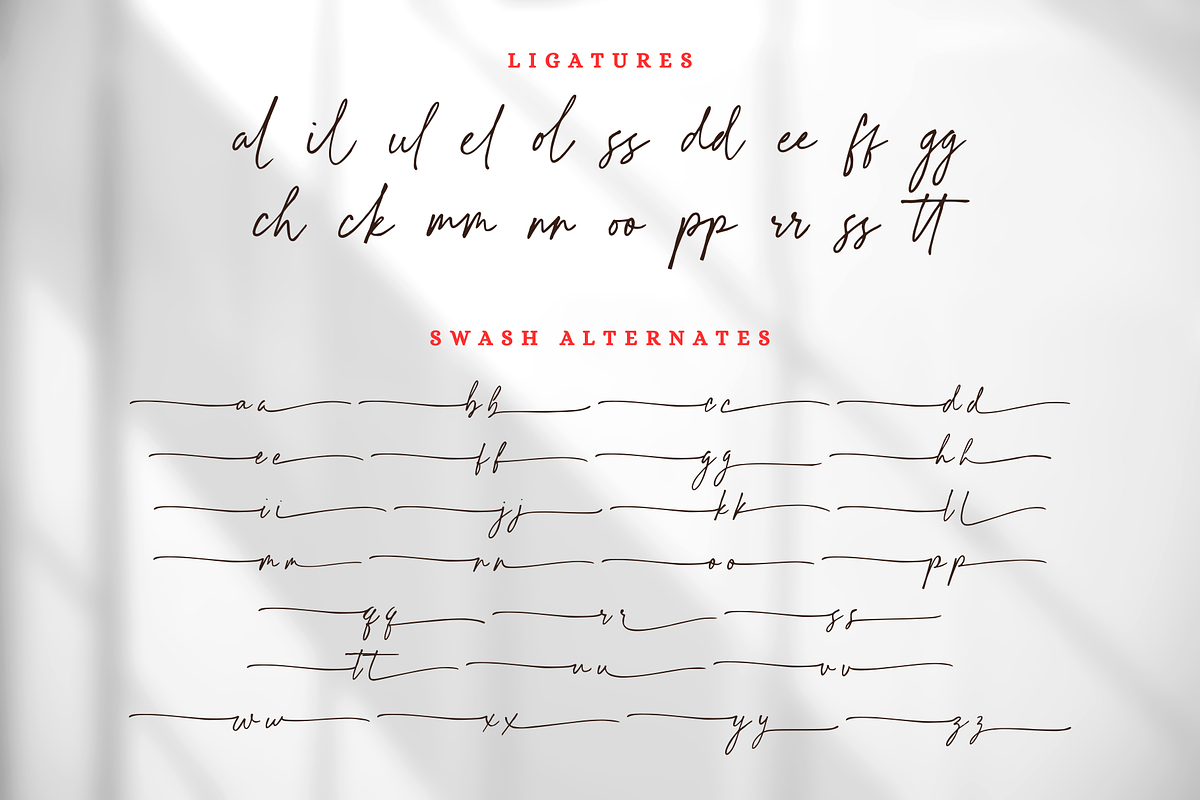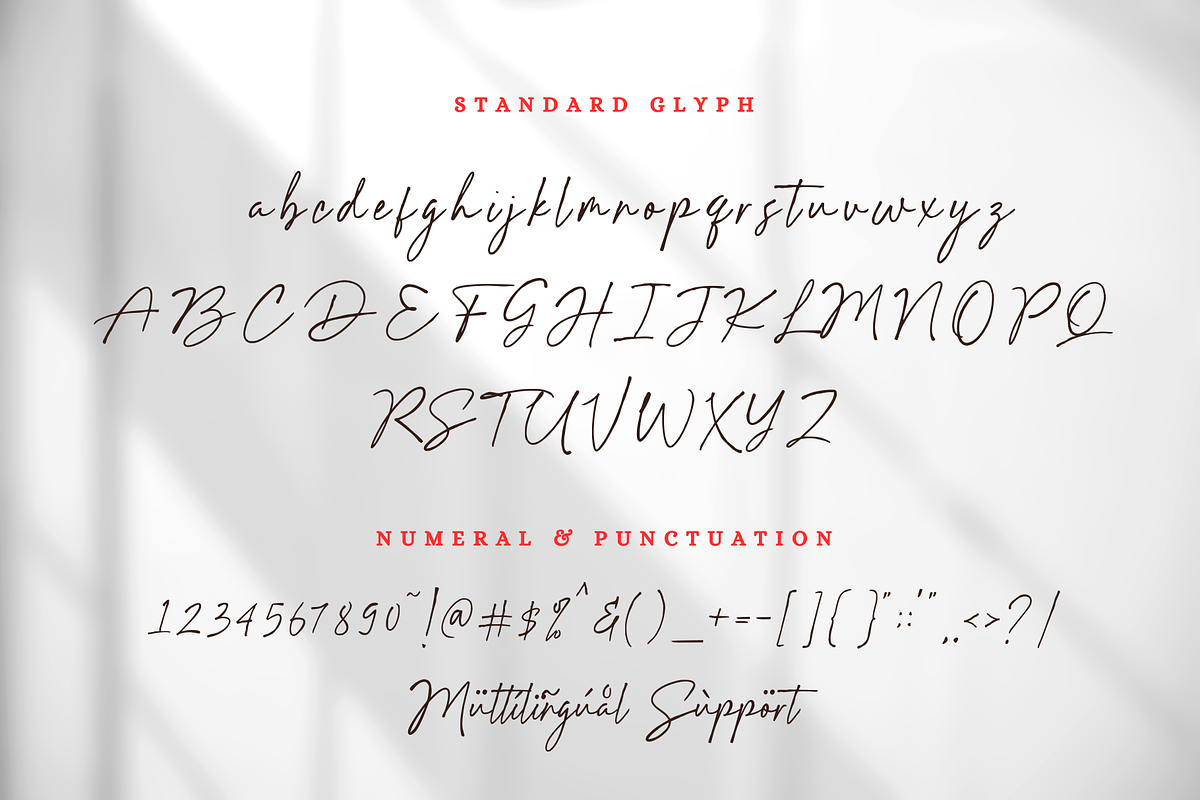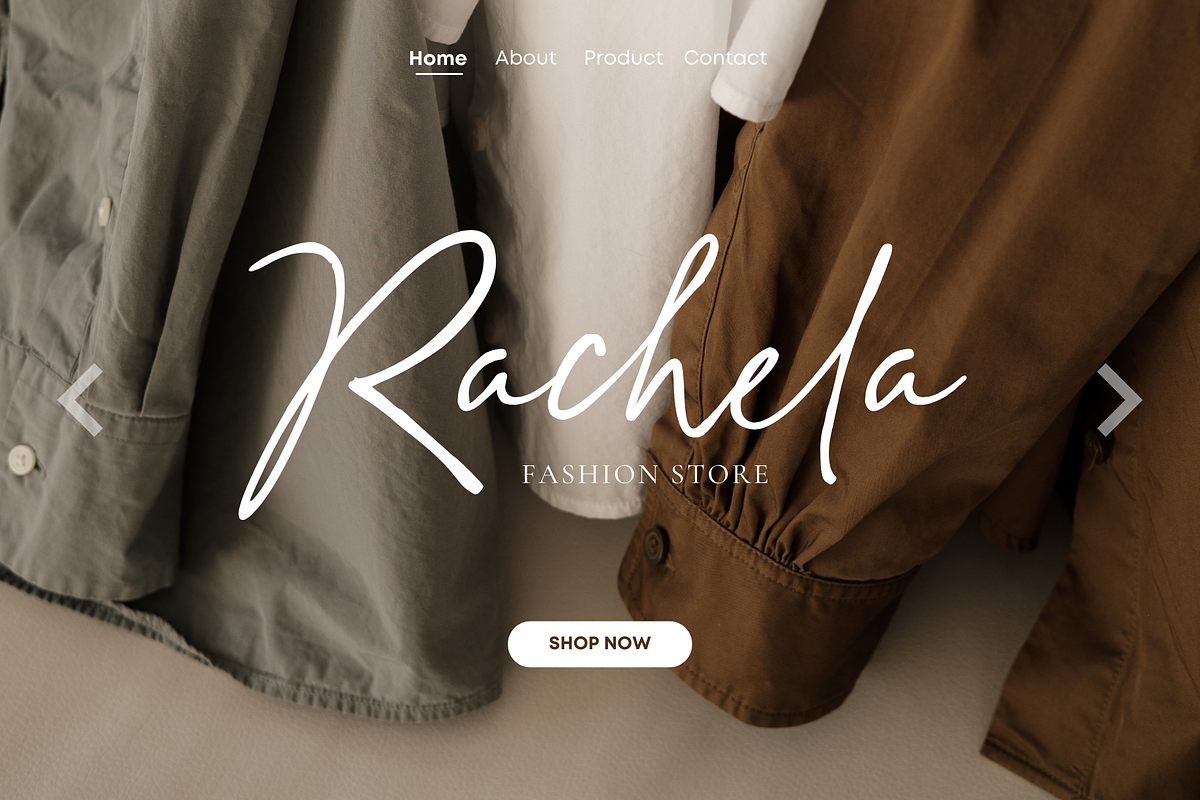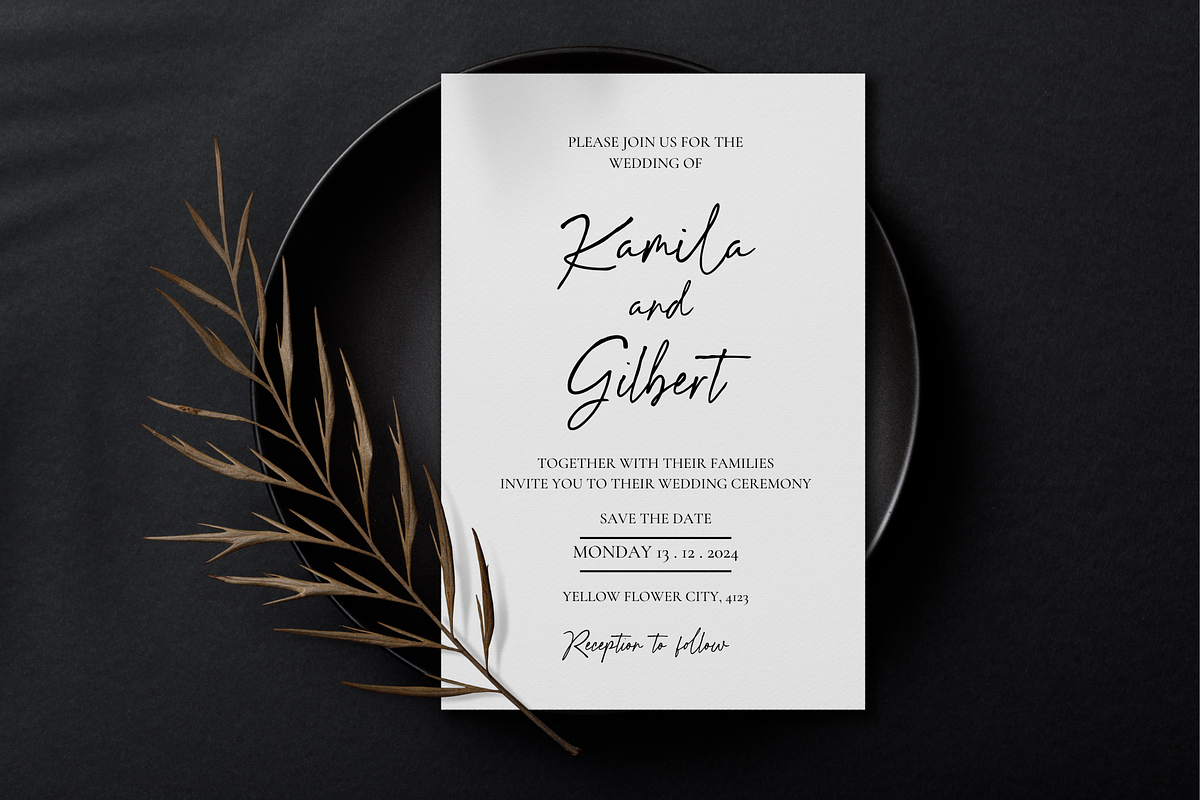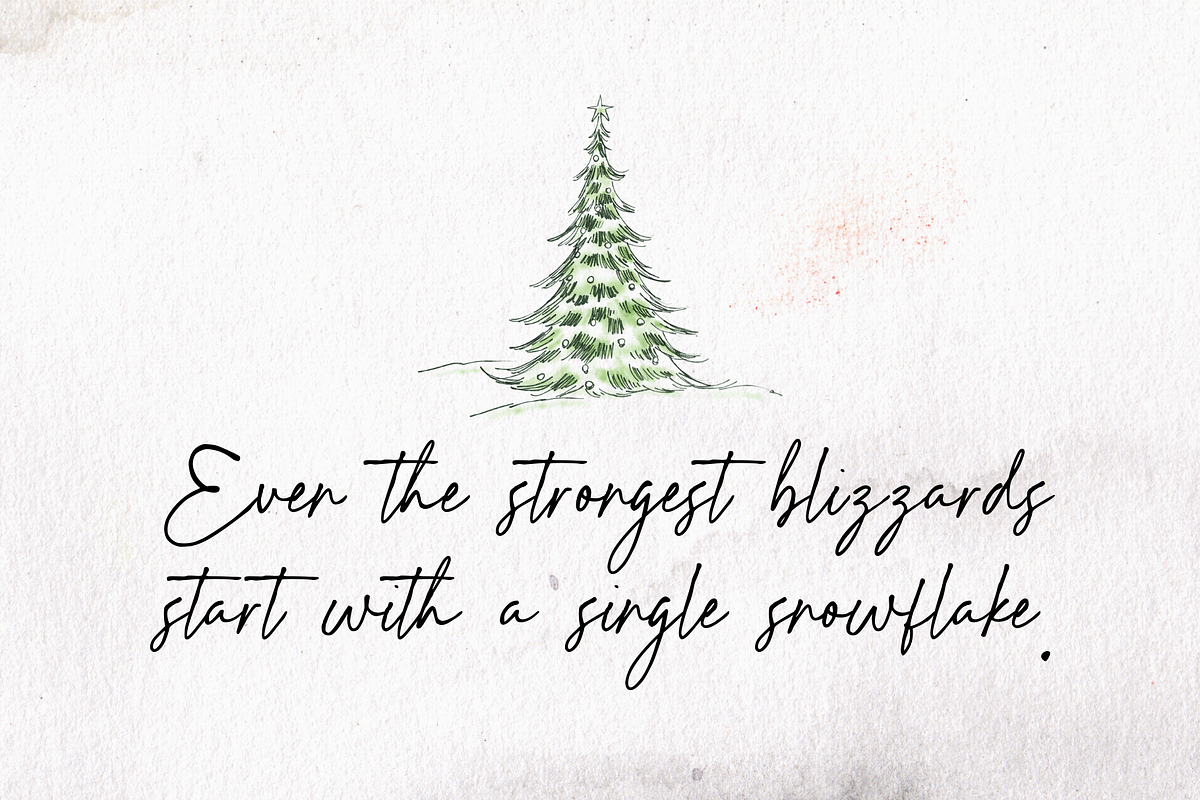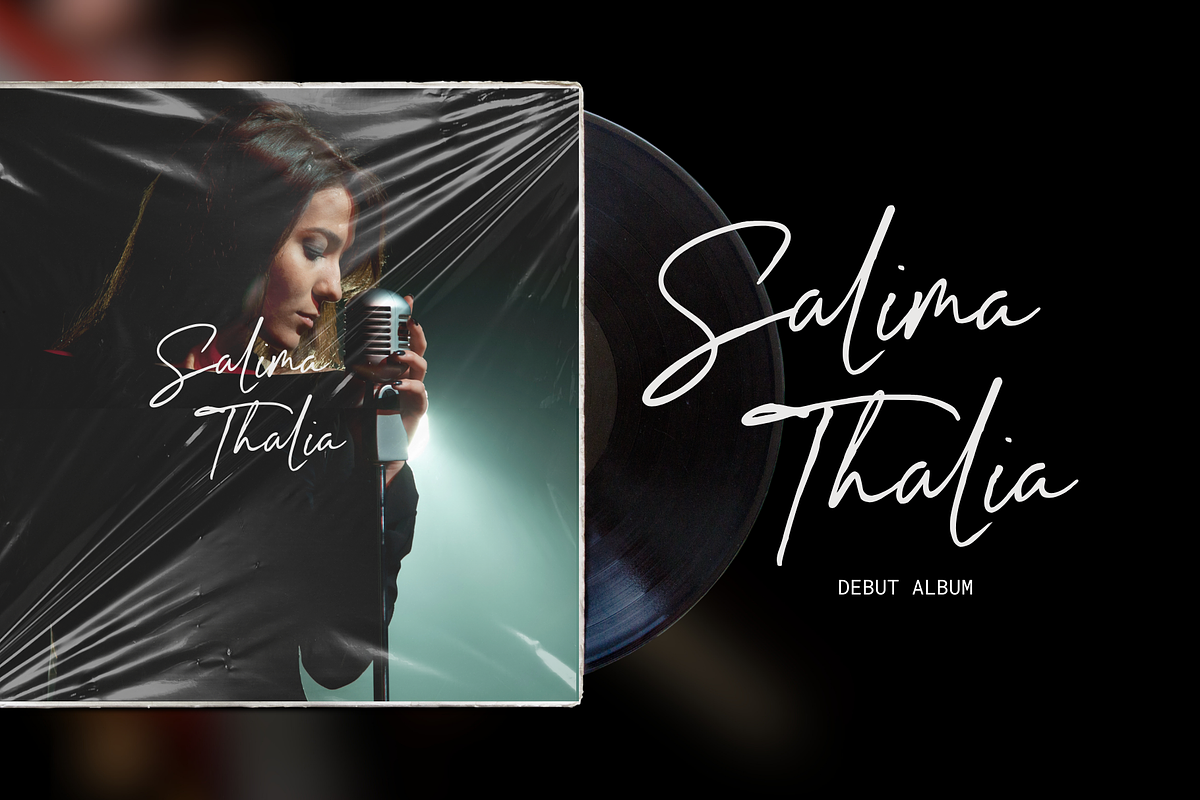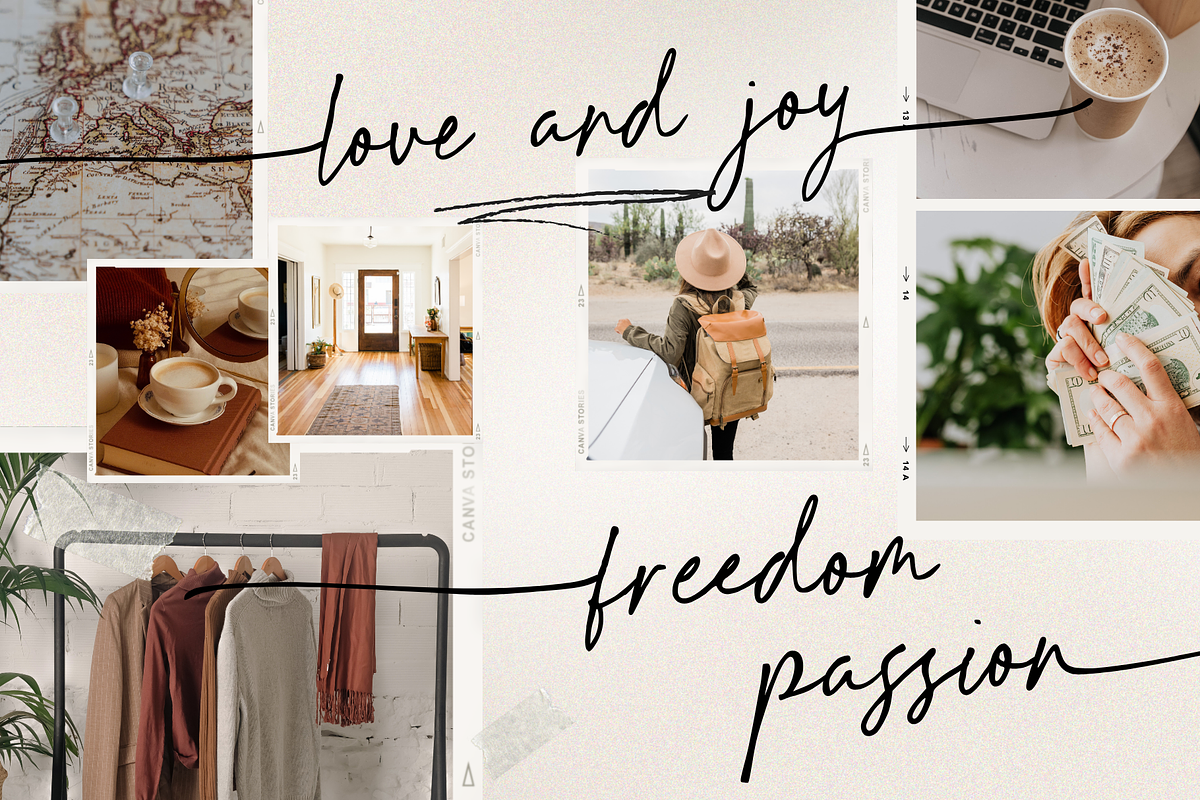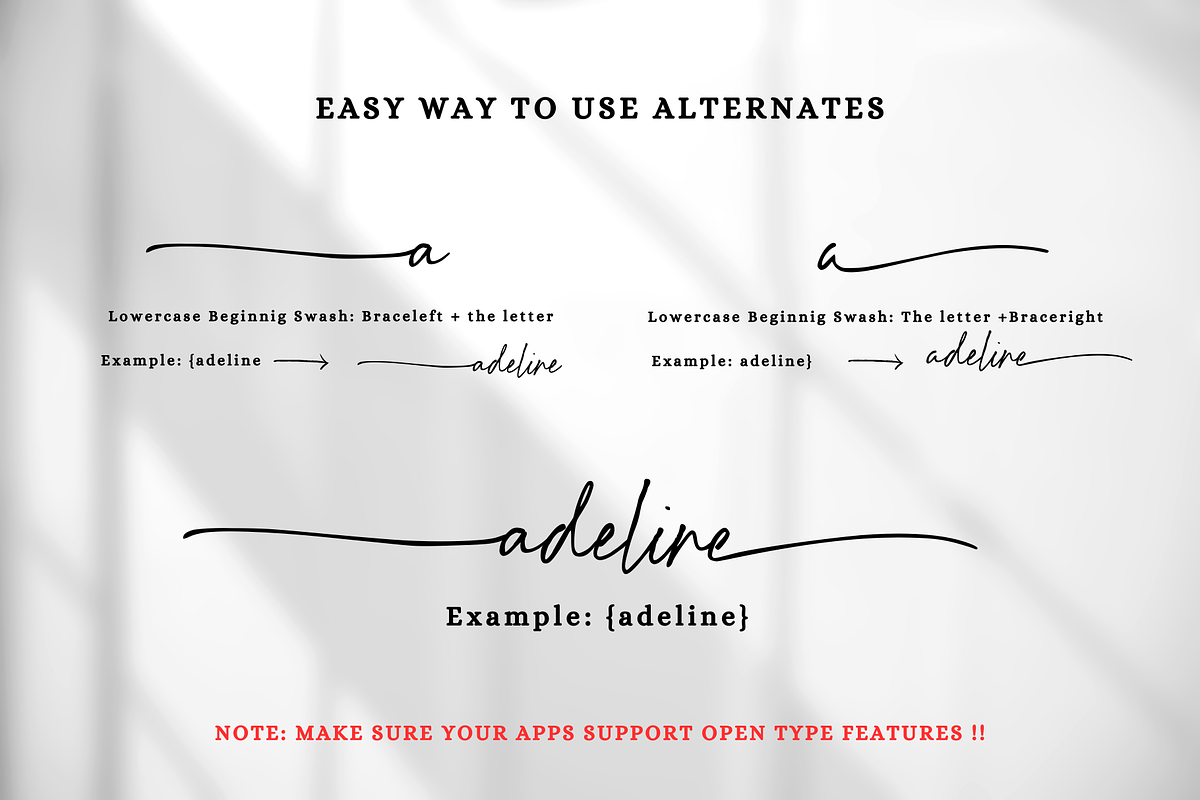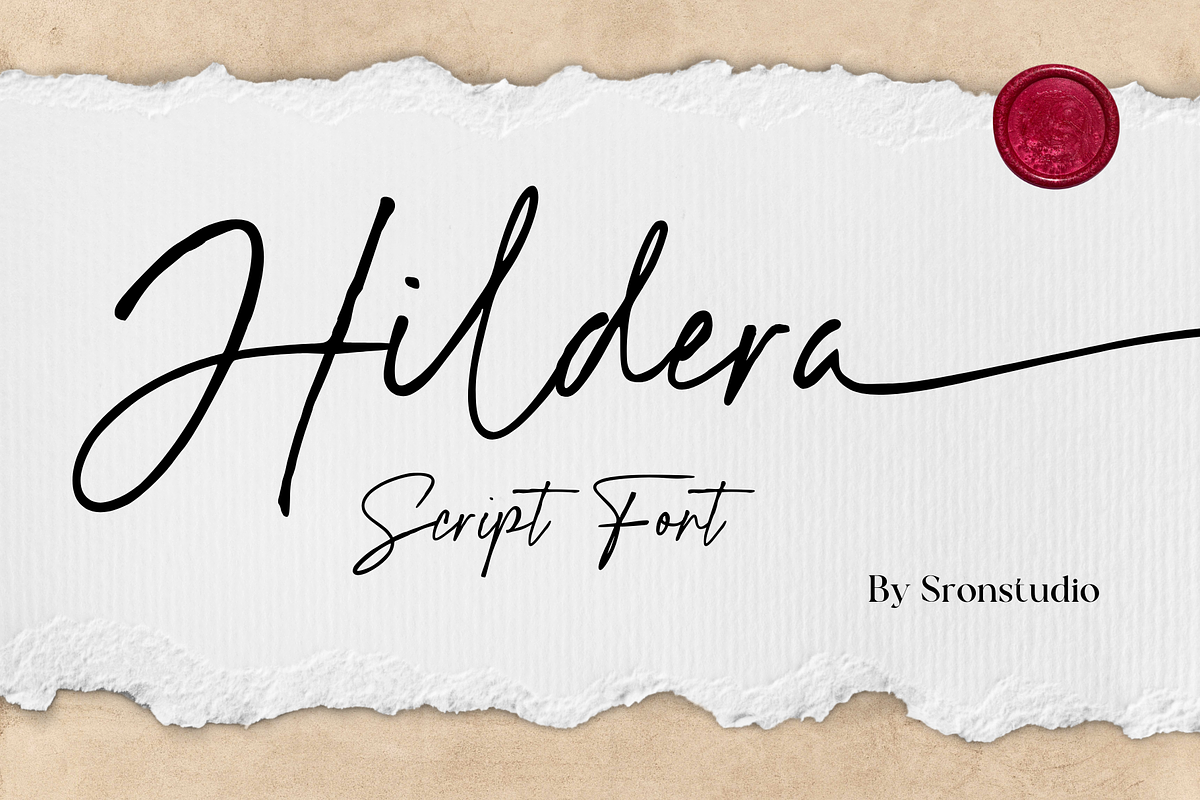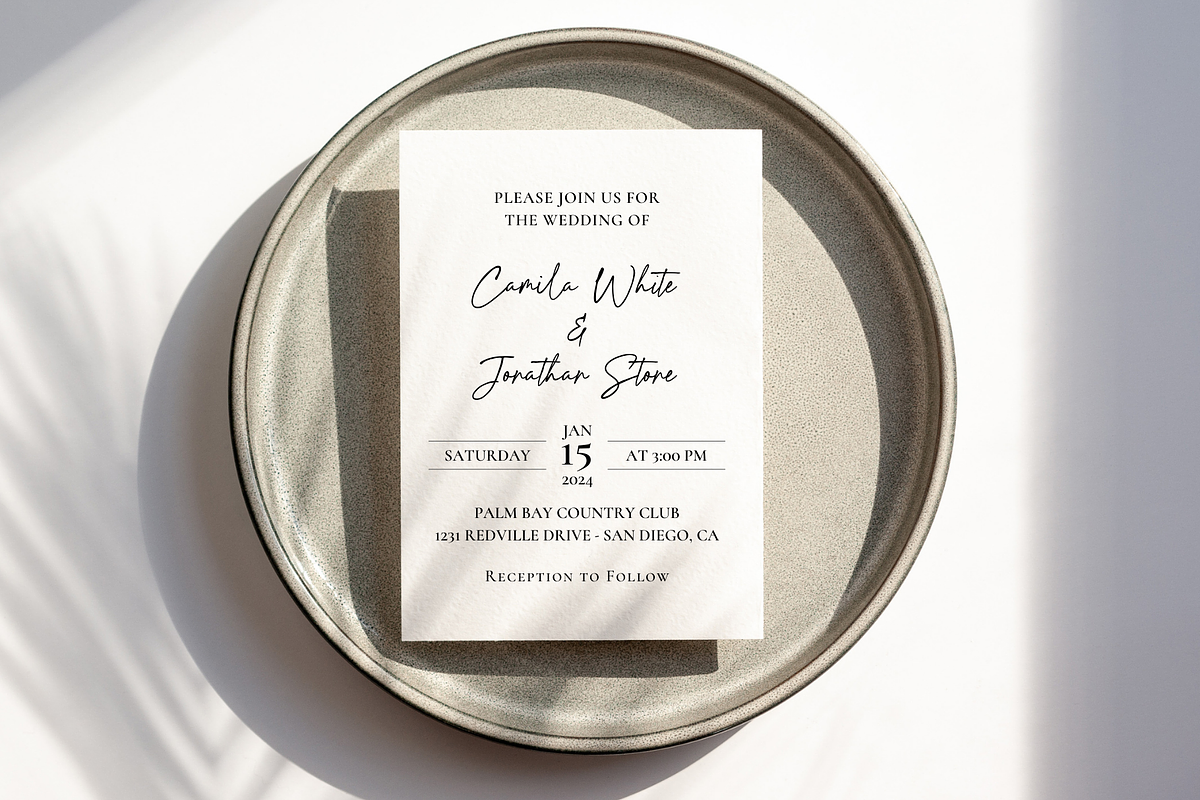
Hildera Script
Introducing "Hildera," a script font that beautifully embraces the harmony of elegance and raw texture. This unique typeface effortlessly blends delicate, graceful strokes with a touch of rough authenticity, creating a perfect balance between beauty and character. Ideal for projects that seek a distinctive and handcrafted aesthetic, "Hildera" adds a touch of sophistication with a hint of rugged charm, making it perfect for a wide range of creative endeavors.
- Lowercase Swash Alternates